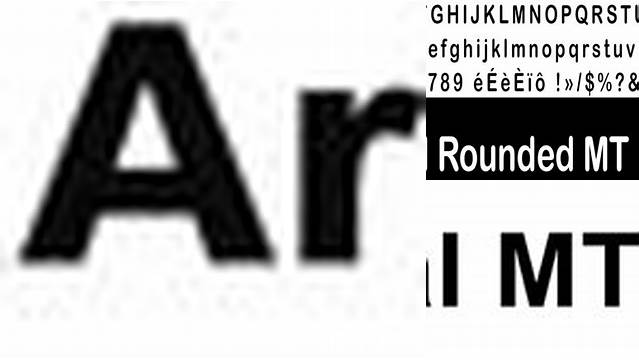
Hey guys, ever stumbled upon a design that just pops? Chances are, a bold, eye-catching font played a huge role. Today, we're diving deep into the world of Arial MT Extra Bold font free download. This particular typeface is a powerhouse, known for its clarity, strong presence, and versatility. If you're on the hunt for a font that can make your headlines scream for attention or your body text stand out with authority, you've come to the right place. We'll explore why Arial MT Extra Bold is such a favorite and, most importantly, how you can get your hands on it without breaking the bank.
Understanding the Appeal of Arial MT Extra Bold
So, what's the big deal with Arial MT Extra Bold font free download? Well, Arial itself is a universally recognized sans-serif typeface, designed for maximum readability across various media. Think of it as the reliable friend in your font collection – always there, always clear. Now, when you amp that up with the 'MT Extra Bold' designation, you're getting a version that’s significantly heavier and more impactful. This isn't just a slightly thicker Arial; it's a statement. It’s the kind of font that commands attention, making it perfect for headlines, logos, posters, and any design element where you need to make a strong visual impact. Its clean lines ensure that even at its boldest, it remains legible, a crucial factor in effective graphic design. This balance of boldness and legibility is what truly sets it apart and makes it a sought-after option for designers and marketers alike. Whether you're creating a print advertisement, a website banner, or even just a compelling presentation slide, Arial MT Extra Bold delivers a punch without sacrificing clarity.
Why Choose Arial MT Extra Bold for Your Projects?
When you're brainstorming for your next big project, the choice of typeface can make or break your design. That's where Arial MT Extra Bold font free download comes into play. This font isn't just about being thick; it's about conveying strength, stability, and confidence. Imagine a brand logo – you want it to be instantly recognizable and project a sense of trustworthiness. Arial MT Extra Bold can do that. Or think about a book cover that needs to grab a reader's attention from a shelf filled with competitors. The sheer weight and presence of this font can make it stand out. It’s also incredibly versatile. While its primary strength lies in display text, it can sometimes be used sparingly in body copy for emphasis on key terms, though this should be done with careful consideration to maintain readability. Its familiarity means it won’t distract the reader with novelty; instead, it reinforces the message with its inherent robustness. This makes it an excellent choice for corporate branding, news publications, and any application where a clear, powerful message is paramount. Designers love it because it's a reliable workhorse that delivers consistent results, simplifying the design process while elevating the overall aesthetic. It’s the kind of font that just works.
Exploring Different Use Cases for Bold Fonts
Beyond just headlines, let's think about the broader applications where a font like Arial MT Extra Bold font free download shines. Consider marketing materials: think brochures, flyers, and social media graphics. In these mediums, you often have limited space to convey a lot of information quickly. A bold font ensures that your key messages – the product name, a special offer, a call to action – are seen immediately. It acts like a visual highlighter, guiding the reader's eye to the most critical information. In the digital space, especially on websites, bold fonts are essential for creating hierarchy. They help users navigate content by distinguishing headings from subheadings and body text. This is crucial for user experience (UX) design, ensuring that visitors can easily scan and find what they're looking for. Furthermore, in branding, consistency is key. If your brand identity calls for strength and modernity, Arial MT Extra Bold can be a foundational element. It can be used across all your touchpoints, from business cards to website headers, creating a cohesive and powerful brand image. It’s not just about making text bigger; it’s about making it matter.